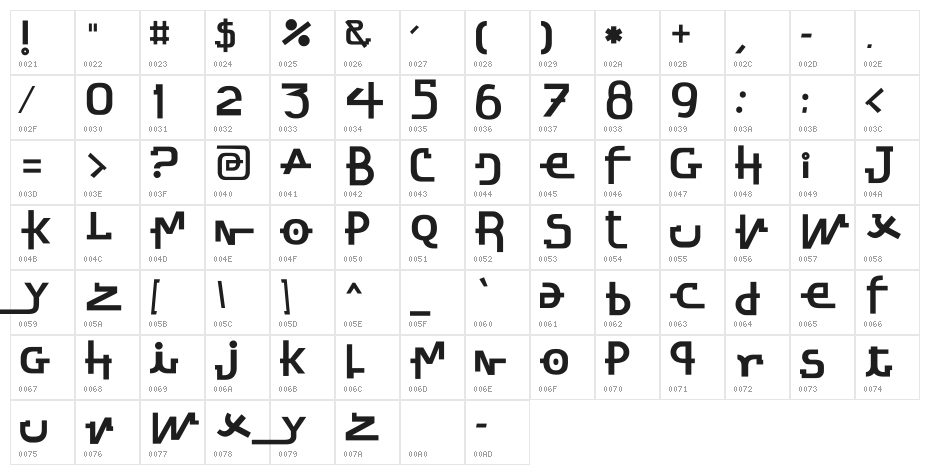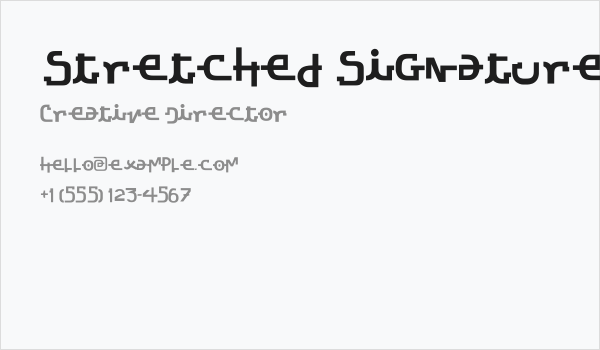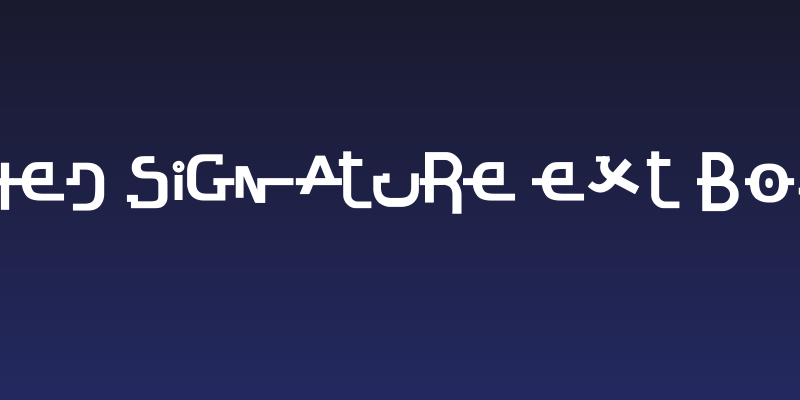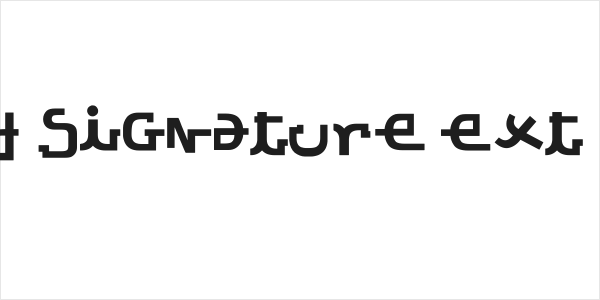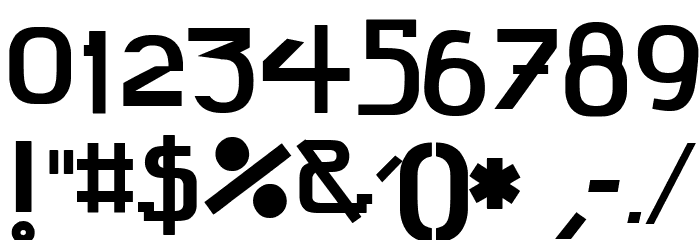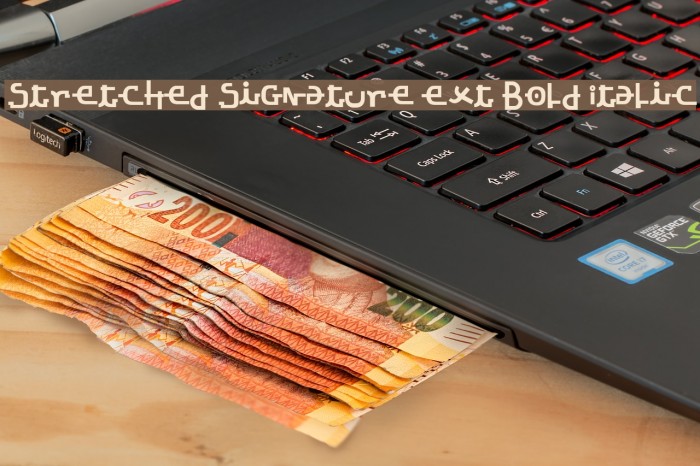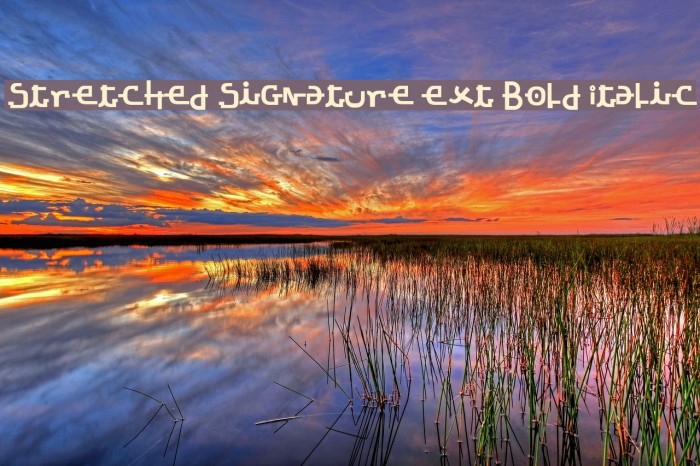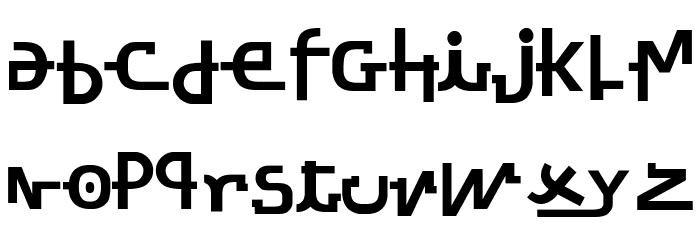
Stretched Signature Ext Bold Italic Font
Stretched Signature Ext Bold Italic Description
This font exhibits a bold and italicized style with a distinctive geometric and futuristic appearance. The characters are uniquely designed with sharp angles and extended strokes, creating a sense of movement and modernity. The uppercase and lowercase letters maintain a consistent style, with some characters featuring unusual cuts and curves that add to the font's dynamic look. The numbers and special characters follow the same design principles, ensuring uniformity across all glyphs. This font's boldness and unique characteristics make it stand out, ideal for projects that require a strong visual impact.
| Proposed Projects | Ideal for branding, posters, album covers, and any project needing a modern, impactful typeface. |